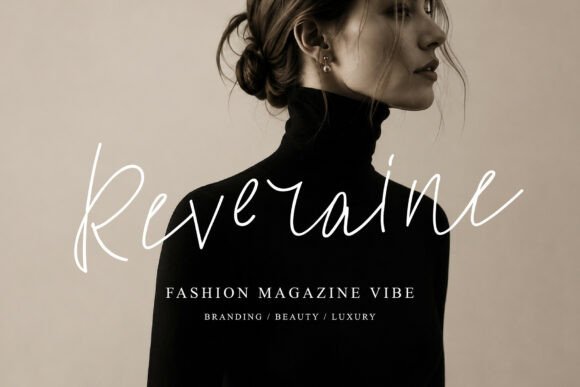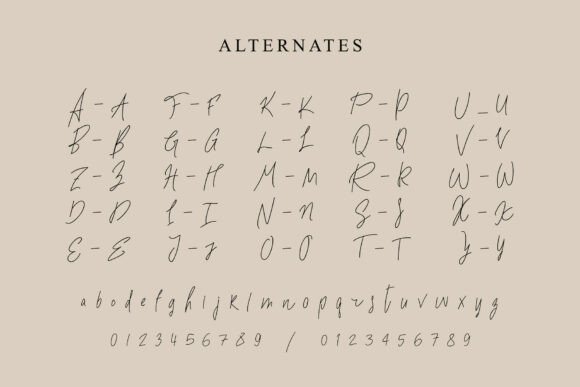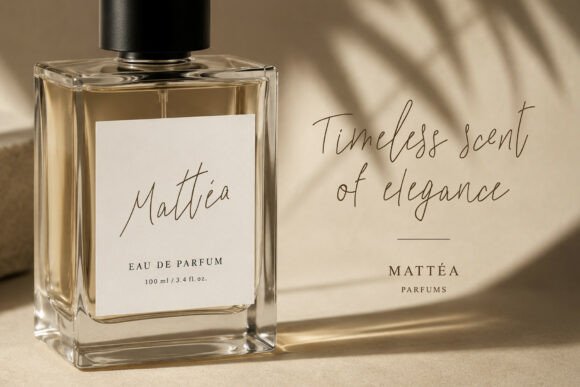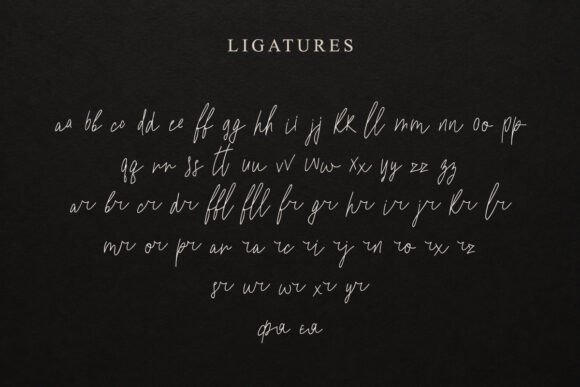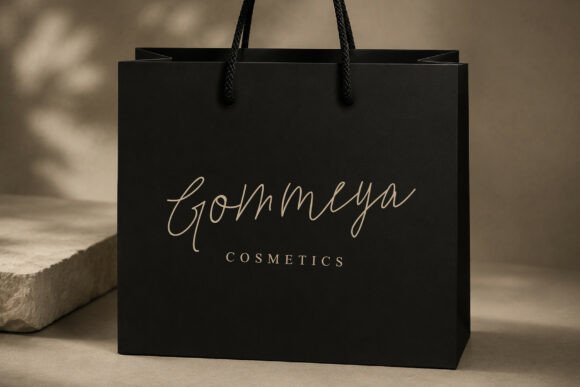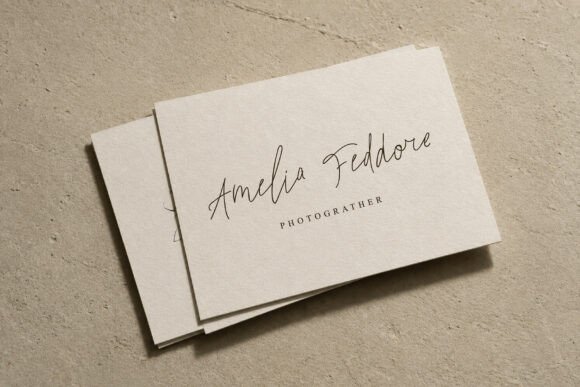
Introduction to Safielle Font
As designers, we’ve all been there – staring at a blank canvas, trying to bring a creative project to life. The spark of inspiration strikes, and suddenly, the possibilities seem endless. For those who crave a touch of elegance and sophistication in their designs, there’s a game-changing font that’s about to become your new best friend – the Safielle Font.
| 👤 Author | ChekArt |
This modern luxury signature script is more than just a pretty face; it’s a design resource that brings a level of refinement and style to even the most mundane projects. With its refined handwritten flow, stylish ligatures, and carefully crafted alternates, the Safielle Font is the perfect addition to any designer’s toolkit.
Key Features of Safielle Font
- High-quality design for creative projects: Safielle Font is ideal for designers and artists looking for a unique and elegant font to enhance their work.
- Unique characteristics: Safielle Font features a distinctive and modern aesthetic, with clean lines and elegant curves, making it an excellent choice for designers seeking a high-quality design resource.
Honest Review: Safielle Font
As a designer, I’m always on the lookout for high-quality design resources that can elevate my creative projects. The Safielle Font has caught my attention, and I’d like to share my honest review.
- ✨ Clean and modern design aesthetic that’s perfect for creative projects
- ✨ High-quality font that’s suitable for both digital and print media
- ⚠️ Limited character set, which may not be ideal for projects that require extensive typing
- ⚠️ May not be suitable for very small font sizes, as it can become difficult to read
Overall, I’m impressed with the Safielle Font’s design and quality. While it may not be perfect, it’s a great addition to any designer’s toolkit. I’d definitely recommend it for creative projects that require a clean and modern look.
Tips for Getting the Most Out of Safielle Font
For a creative project, use the Safielle Font to add a touch of elegance and sophistication. Experiment with different font sizes, colors, and arrangements to create visually appealing text. Additionally, use the font in conjunction with other design elements, such as images and graphics, to create a cohesive design.
Common Use Cases for Safielle Font
The Safielle Font is versatile and can be used in various design contexts, including branding, marketing materials, and digital graphics. It’s particularly suitable for projects that require a modern, sleek, and professional look.